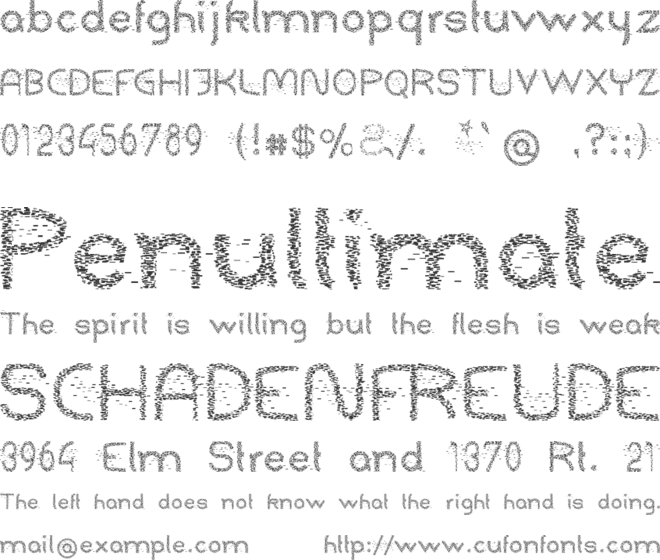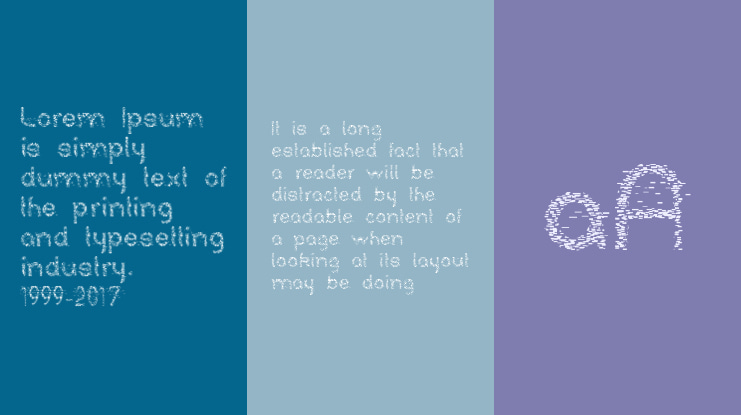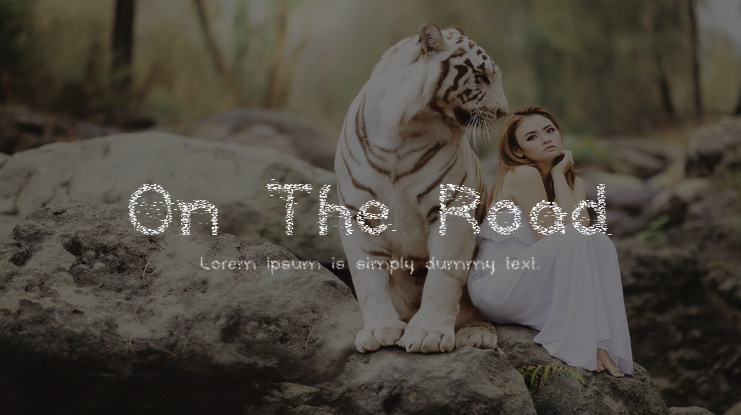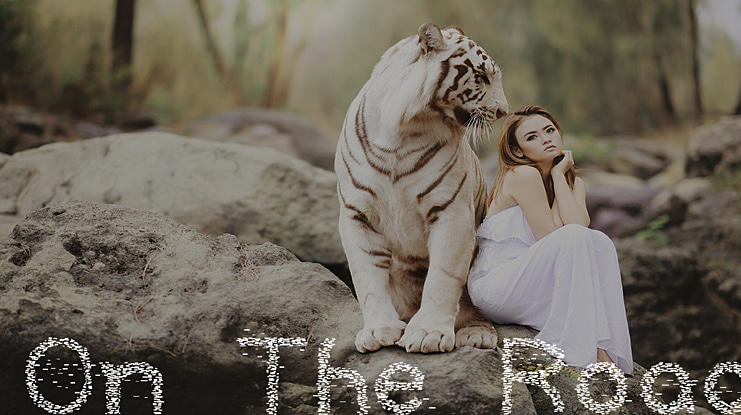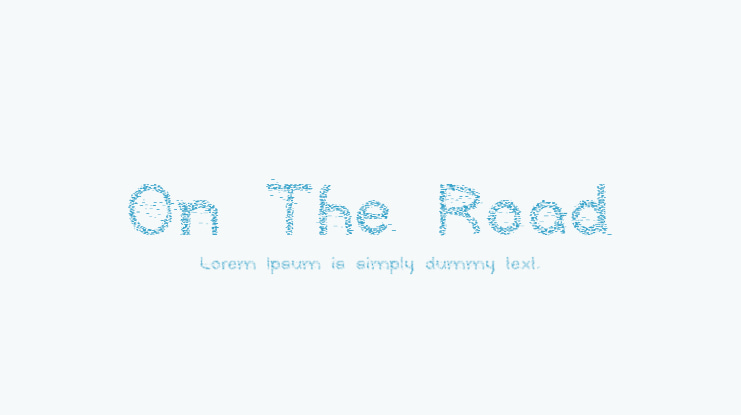
On The Road Font
ON THE ROAD is one of my first font designs with a dust effect and kerning adjustments. The name comes from Jack Kerouacs On The Road.